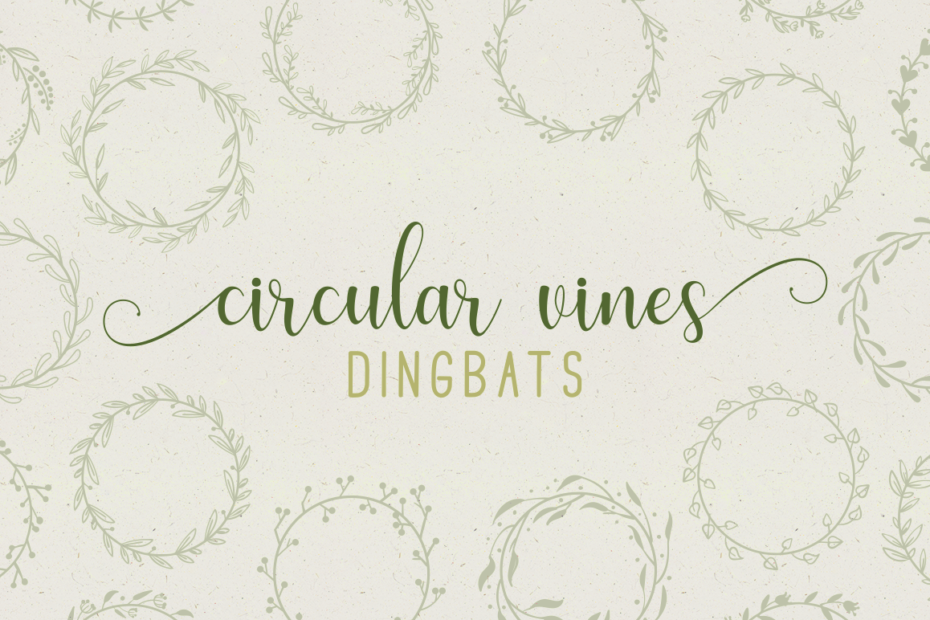
Unleash Your Creativity with Circular Vines Dingbat Font
Have you ever stared at a blank canvas, waiting for inspiration to strike? We’ve all been there – the blank page, the empty design space, the nagging feeling that something’s missing. But what if you had the perfect tool to bring your ideas to life? Enter the Circular Vines Dingbat Font, a stunning, hand-drawn set of 20 unique vine designs that will take your creative projects to the next level.
This exclusive dingbat set is more than just a font – it’s a game-changer for designers. With its circular vines, you’ll be able to add a touch of elegance and sophistication to your designs, from wedding invitations to packaging labels. Whether you’re a seasoned pro or just starting out, the Circular Vines Dingbat Font is a valuable addition to your design arsenal.
Circular Vines Dingbat Font Key Features
- Font Style: Dingbats, decorative font with circular vines design
- Unique Characteristics: Hand-drawn, hand-painted look with intricate details and textures
Circular Vines Dingbat Font Review
I recently had the chance to work with the Circular Vines Dingbat Font, and I must say it’s been an interesting experience. ✨ One of the things that stands out about this font is its unique design. The circular vines that make up the font are not only aesthetically pleasing but also add a touch of whimsy to any project.
Another thing that works well with this font is its versatility. ✨ It can be used for a wide range of applications, from children’s books to wedding invitations. The font is also highly customizable, allowing designers to adjust the size, color, and spacing to suit their needs.
While the Circular Vines Dingbat Font has its strengths, it also has some limitations. ⚠️ One of the main drawbacks is its readability. In certain situations, the circular design can make it difficult to read the text, especially in small sizes or at a distance.
Another limitation is the font’s complexity. ⚠️ With so many intricate details, the font can be challenging to work with, especially for beginners. This can lead to frustration and wasted time trying to get the design just right.
In conclusion, the Circular Vines Dingbat Font is a unique and versatile design that can add a touch of personality to any project. However, its limitations must be taken into consideration. With careful planning and attention to detail, this font can be a valuable addition to any designer’s toolkit.
- Unique circular design
- Versatile for various applications
- Challenging to read in certain situations
- Complex design can be difficult to work with
Use Circular Vines Dingbat Font to add a decorative touch to your designs.
It’s ideal for creating invitations, party decorations, and other festive materials.
Combine the font with other design elements to create a unique and eye-catching look.